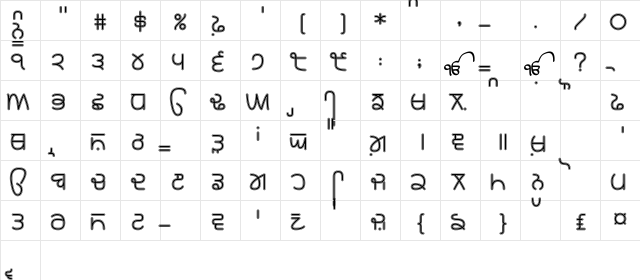
Rupe Border 7 Bold Short
| Foundry | Paul Alan Grosse |
| Designer | Paul Alan Grosse |
Design Context for Rupe Border 7 Bold Typeface
Rupe Border 7 Bold is a composed and adaptable typeface that performs quietly and consistently across a wide range of design contexts. Its bold stroke weight gives it real presence on the page.